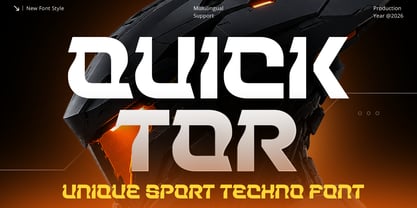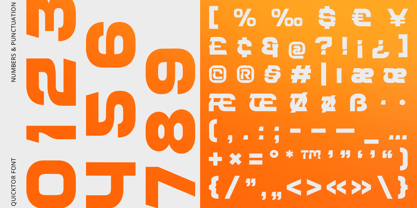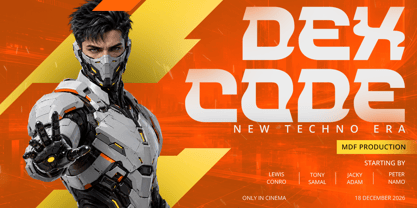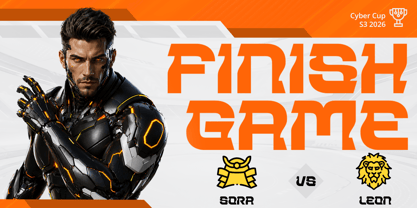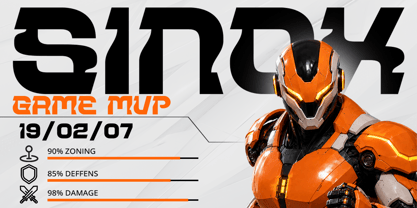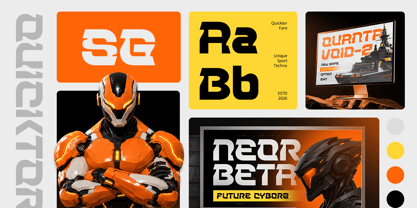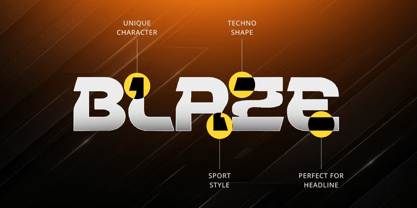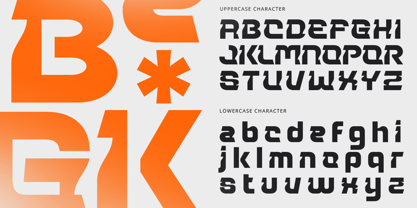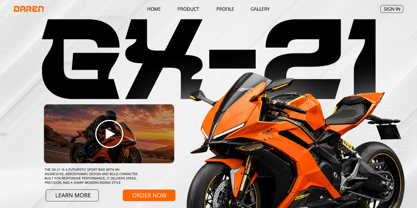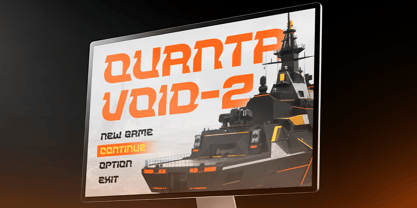
Quicktor
by Dareco Studio
The Quicktor Font Family was designed by Kusnidah Marpuah and published by Dareco Studio. Quicktor contains 1 styles. More about this family
Quicktor – Unique Sport Techno Font is a bold sport techno font designed for racing branding, esports graphics, automotive projects, gaming visuals, and futuristic logo design. Inspired by high-speed motorsports, digital technology, and modern performance aesthetics, Quicktor delivers a distinctive typographic style built for brands that demand energy, precision, and innovation.
Featuring sharp letterforms, dynamic geometry, and futuristic techno details, Quicktor creates a strong sense of speed and movement while maintaining excellent readability. Every character is carefully crafted to deliver maximum visual impact, making this font an ideal choice for high-performance branding and modern display typography.
Whether you're designing a racing logo, creating a gaming identity, developing esports branding, or producing technology-focused marketing materials, Quicktor provides the bold visual language needed to communicate speed, power, and innovation.
Quicktor is Perfect For
• Racing and motorsport branding
• Esports teams and gaming identities
• Automotive logos and performance branding
• Technology and futuristic brand identities
• Sports event graphics and promotional campaigns
• Dynamic headlines and display typography
• Website headers and digital marketing assets
• High-impact visual identity systems
Whether you're creating a racing brand, designing a gaming logo, building an esports identity, or developing a technology-driven visual system, Quicktor delivers the speed, power, and futuristic character of a professional sport techno font.
Designers: Kusnidah Marpuah
Foundry: Dareco Studio